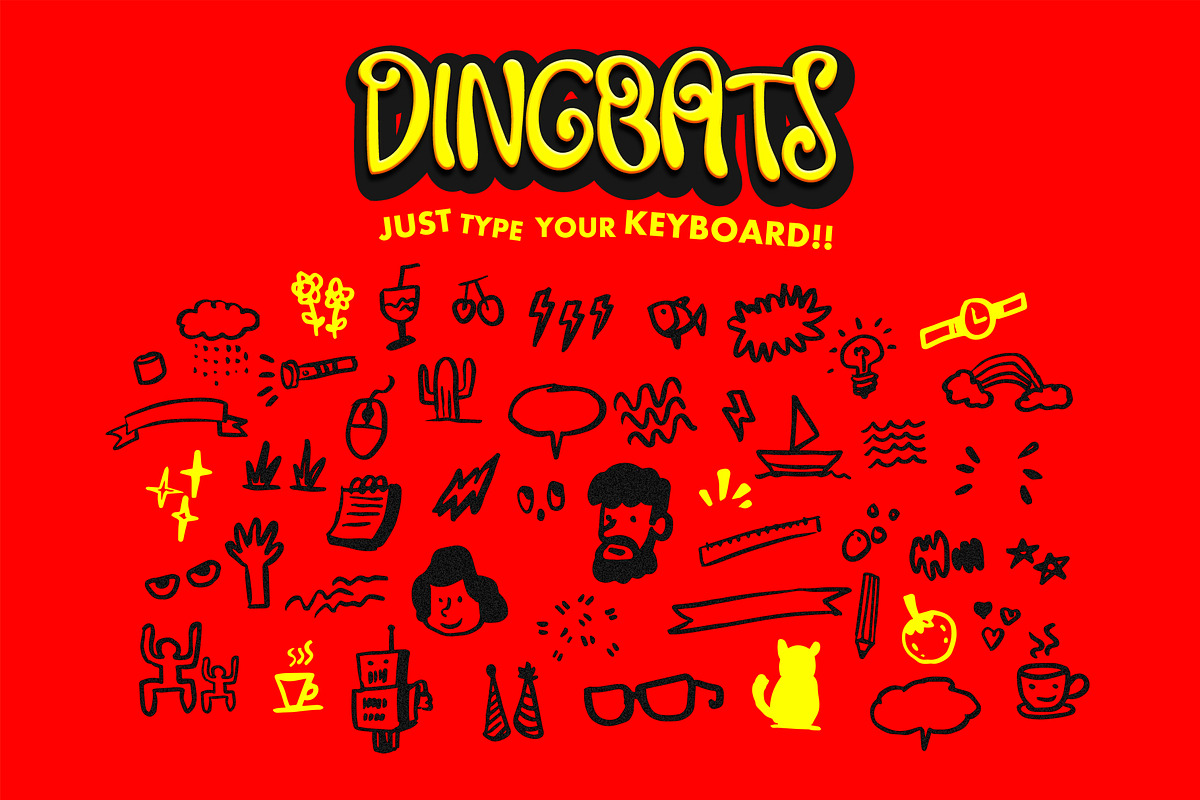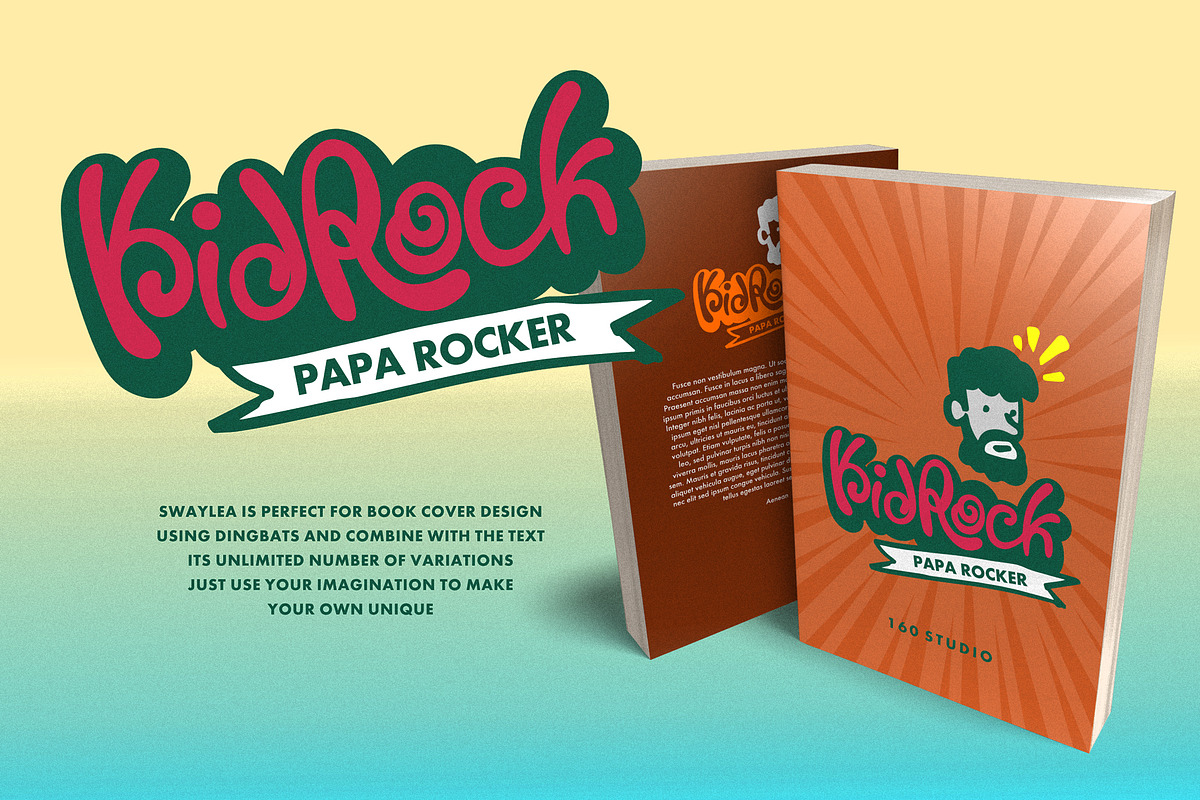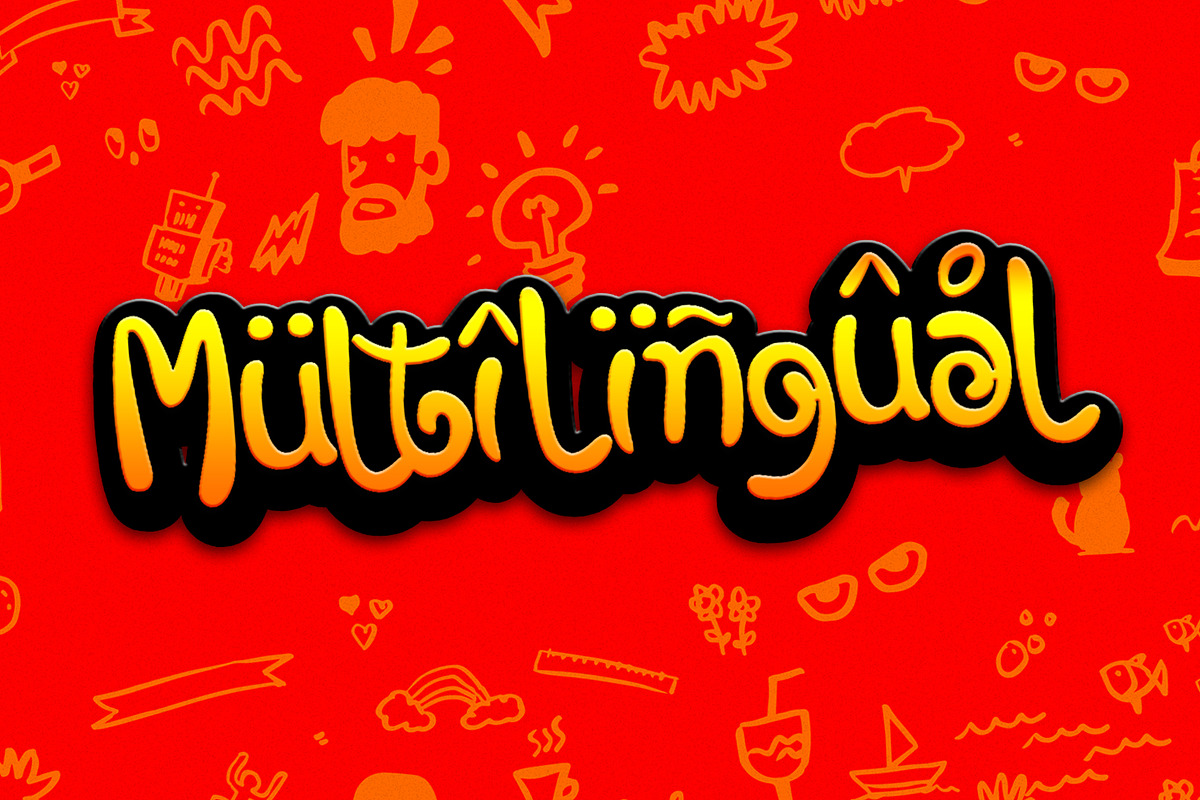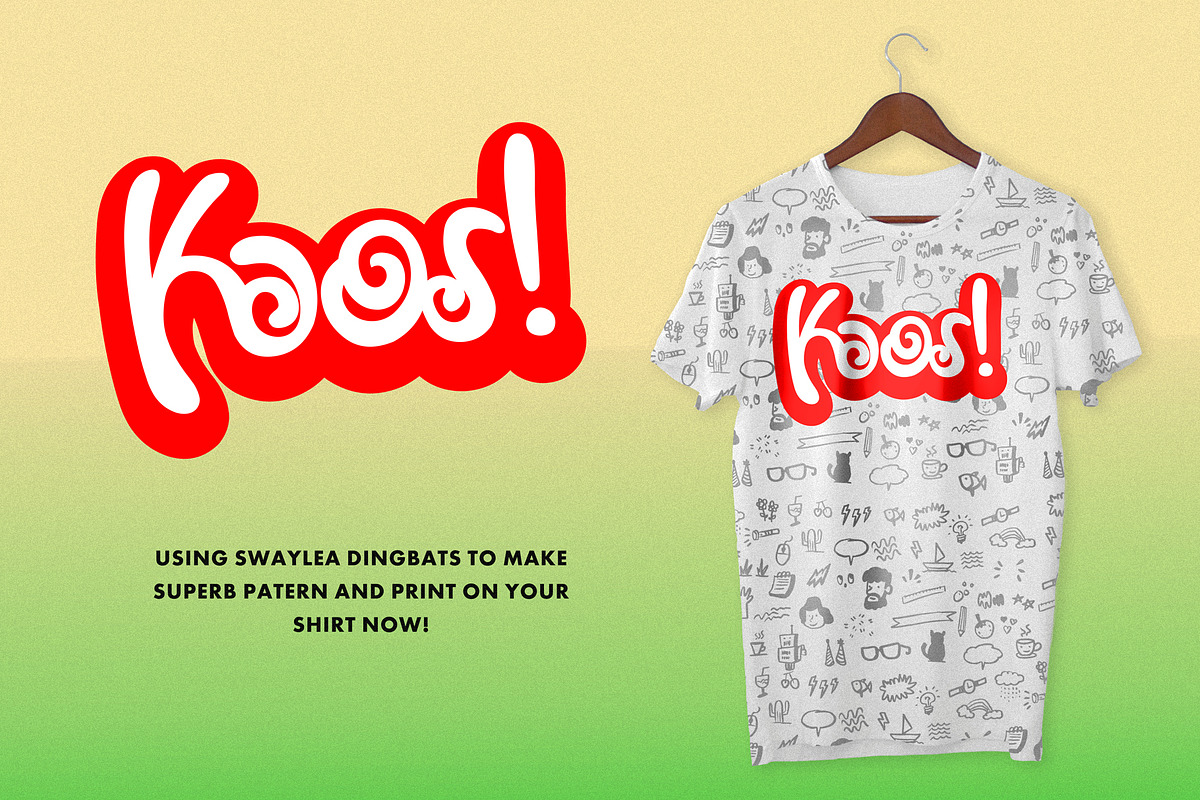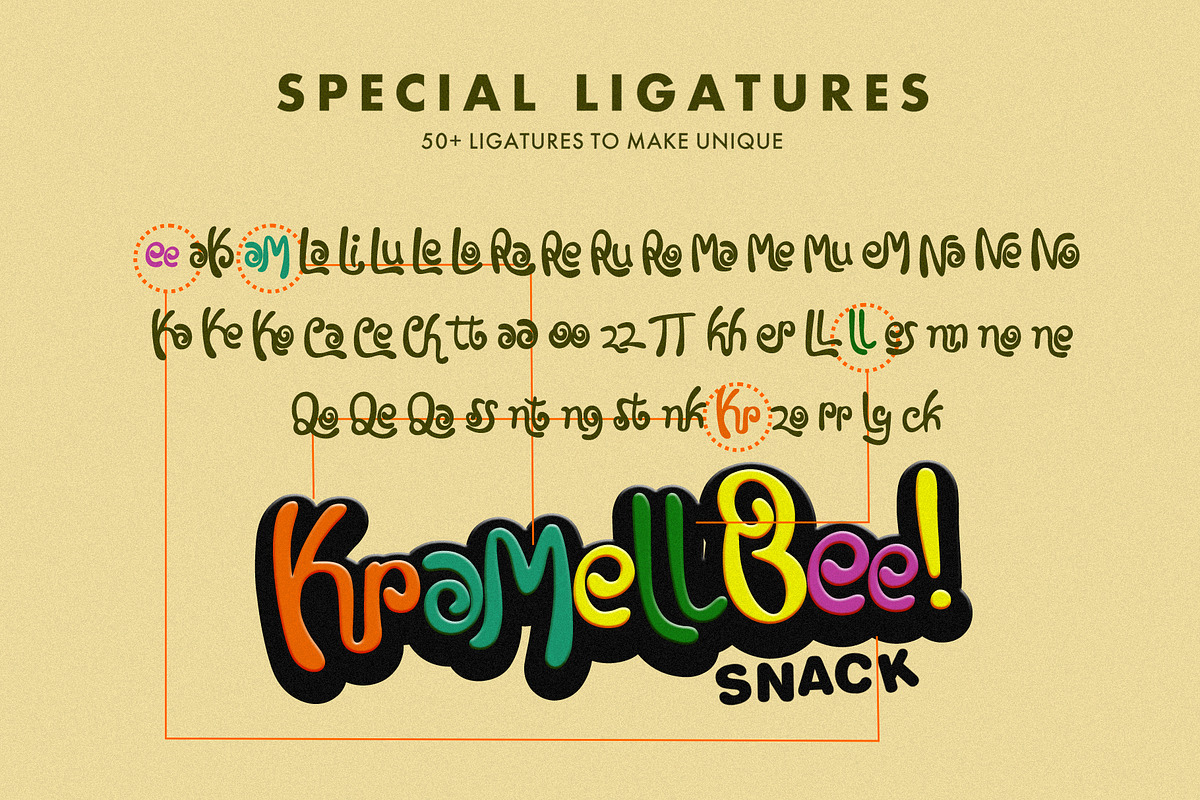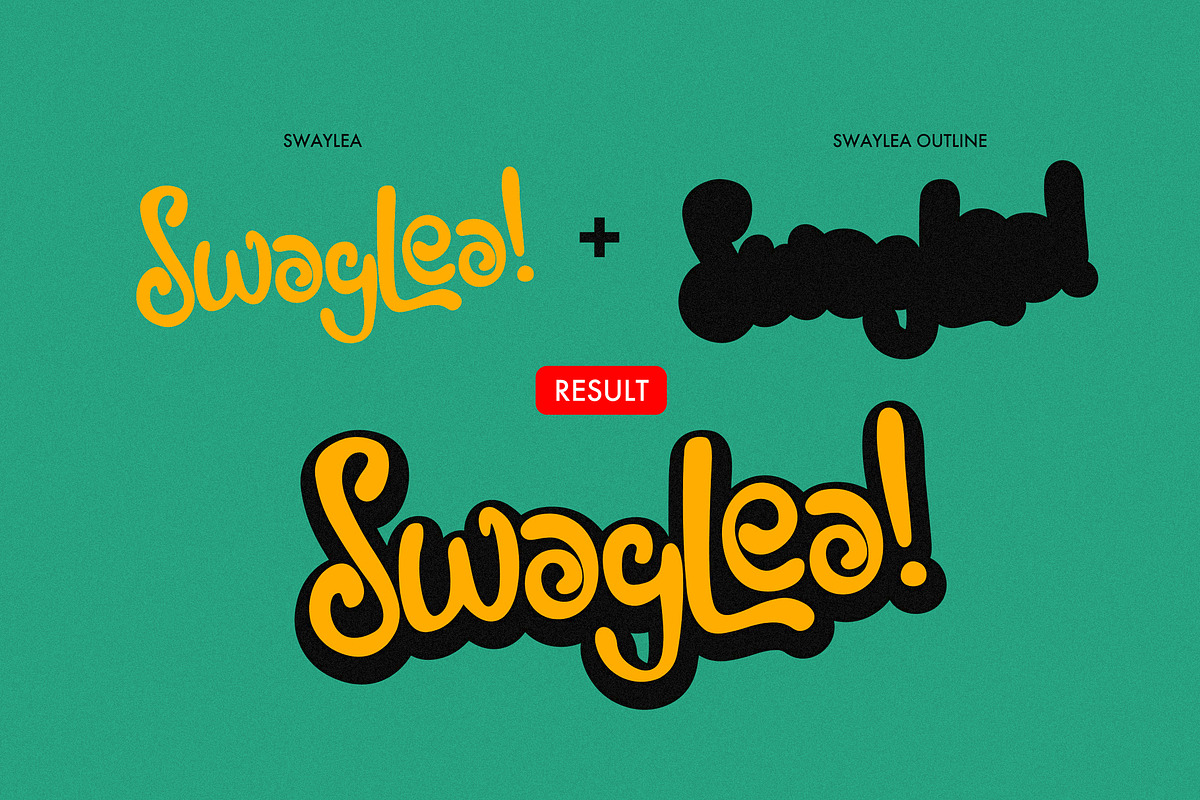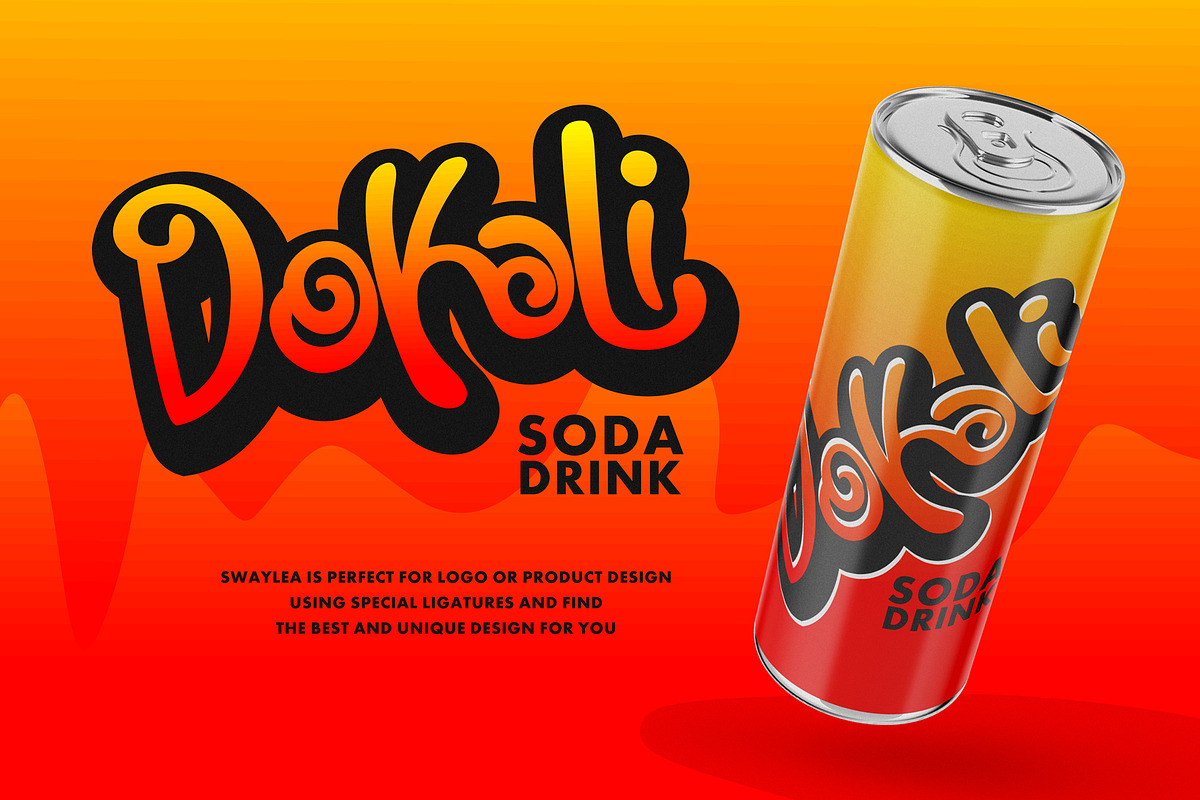
Swaylea | Layered Font + Dingbats
Give your unique typography design with a touch of Swaylea!
Swaylea best uses for headings, Logo type, quotes, apparel design, invitations, flyer, poster, greeting cards, product packaging, book cover, printed quotes, cover album, movie, etc.
To access dingbats just type your keyboard keys...the letters work in both lowercase and uppercase.
UPDATE: Multi Language Support